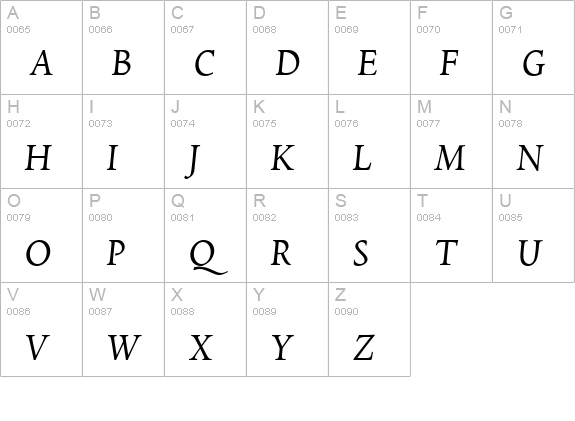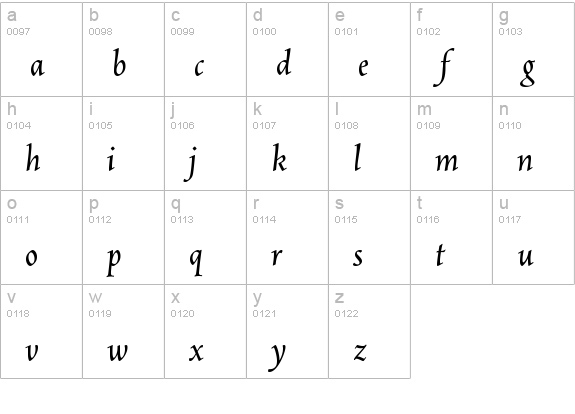
Spira-RegularItalic is a beautifully designed font that exudes elegance and sophistication. With its graceful and slanted letterforms, this typeface adds a touch of uniqueness and style to any project. The italicized variation of the Spira-Regular font, it offers a dynamic and dynamic look that is perfect for adding emphasis or creating a sense of movement. This font is meticulously crafted with attention to detail, resulting in a stunning display of artistry. Its smooth curves and delicate strokes create a harmonious balance between classic and contemporary design elements. Spira-RegularItalic is versatile and adaptable, making it suitable for a wide range of creative applications. One of the standout features of Spira-RegularItalic is its versatility. It is suitable for both large-scale designs, such as posters and banners, as well as smaller projects like invitations and business cards. Its legibility and readability ensure that your message will be conveyed with clarity and style. The best part is that this font is free! Yes, you read that right. Spira-RegularItalic is freely available to download at FontsMarket.com. This means that you can enhance your designs with this stunning typeface without spending a dime. Whether you are a professional designer or just starting out, Spira-RegularItalic is a valuable addition to your font collection. So why wait? Download Spira-RegularItalic now and unleash your creativity. With its timeless elegance and free availability, this font is a must-have for any design enthusiast. Don't miss out on the opportunity to elevate your designs with this beautiful typeface. Get Spira-RegularItalic today and let your imagination soar.